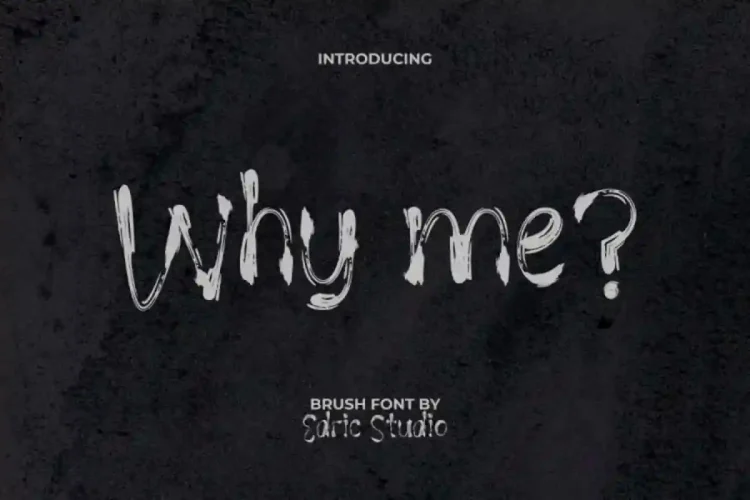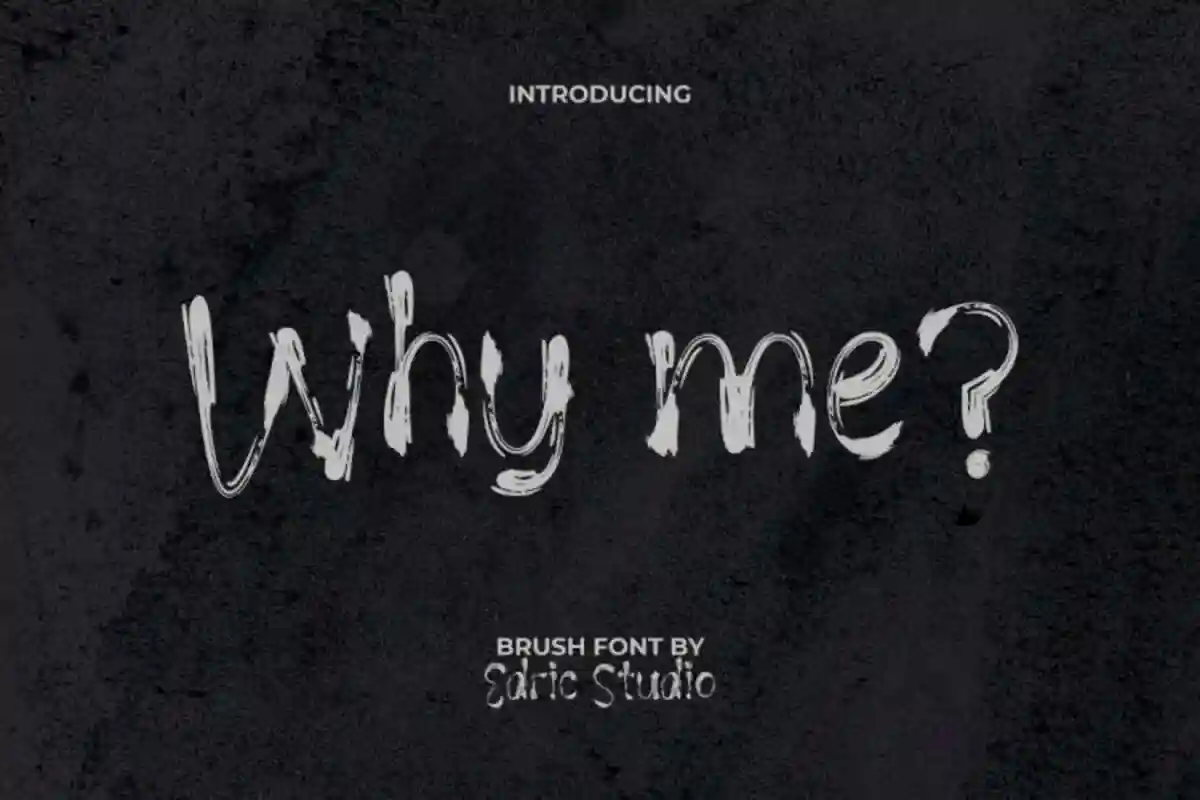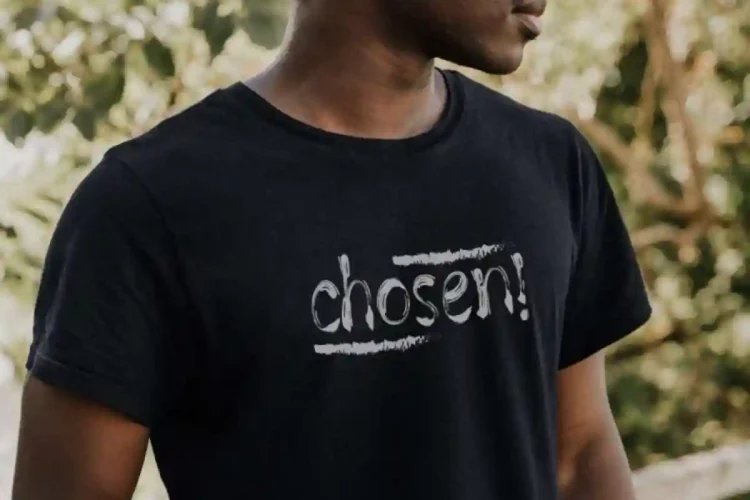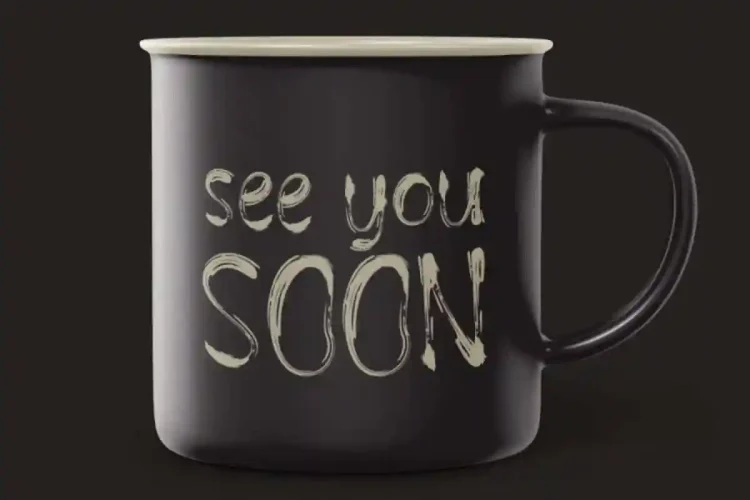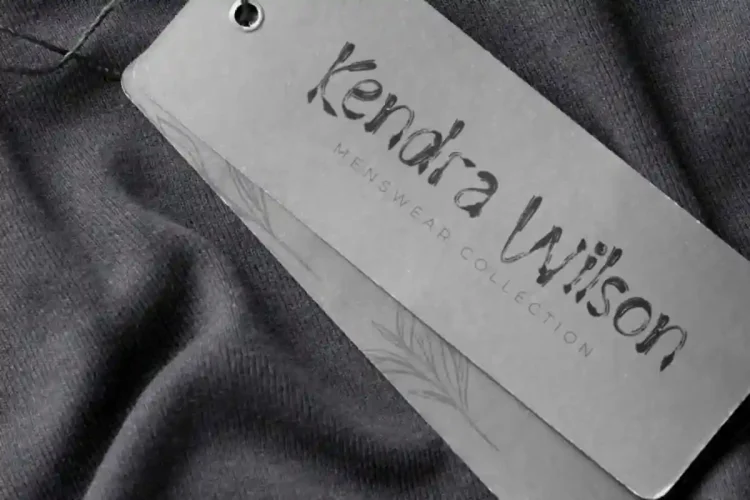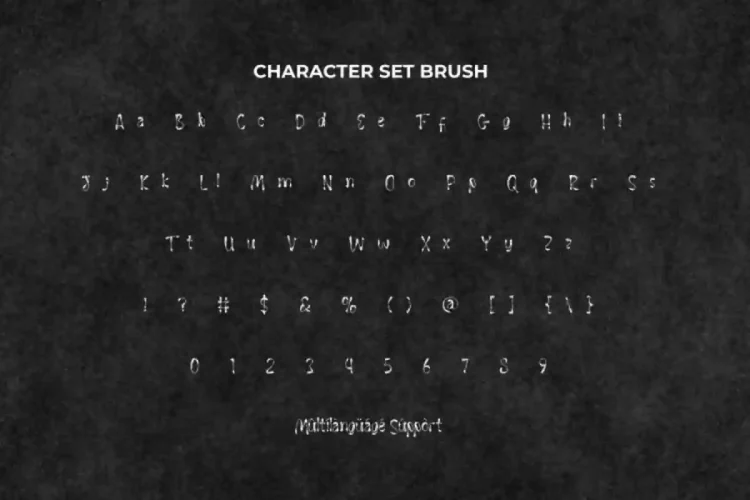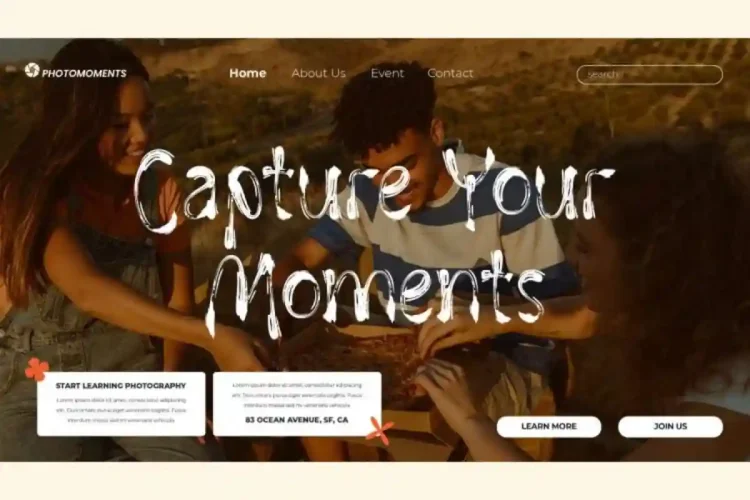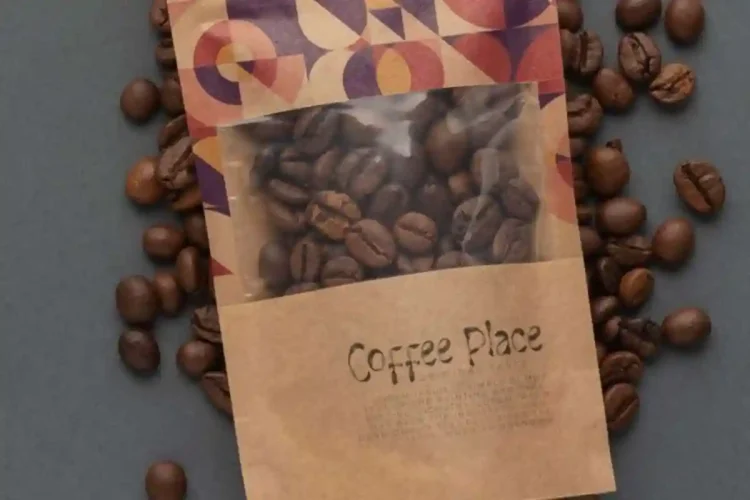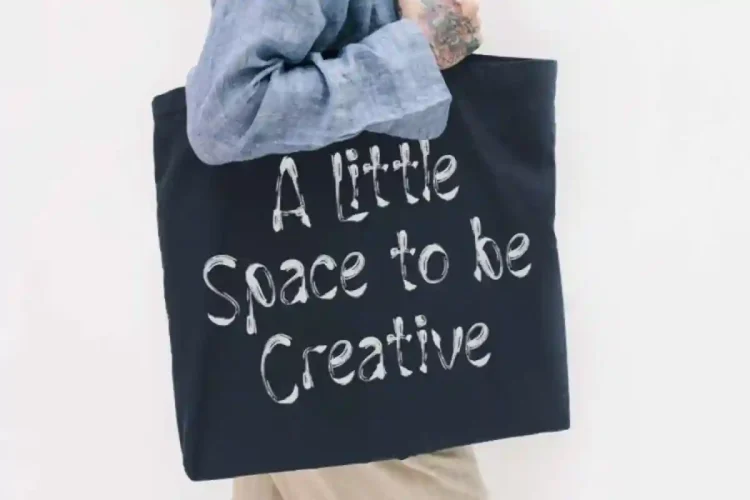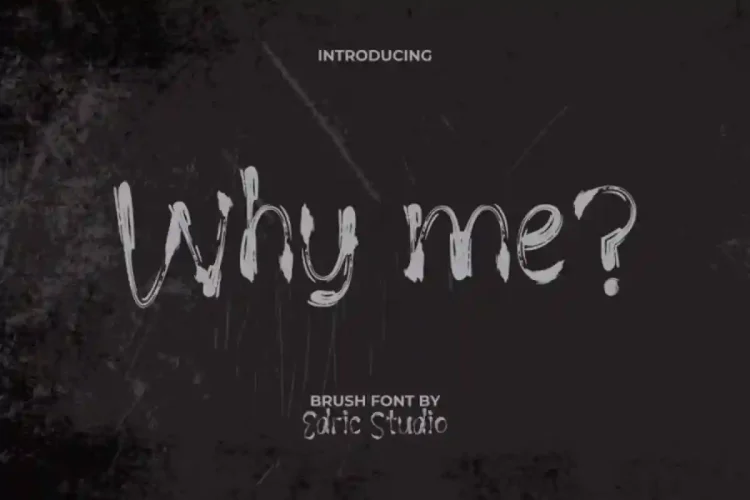
Why me Display Brush Font
Why me Display Brush Font a horror textured brush display typeface designed by EdricStudio. This font takes the concept of brushing paint to make it unique and looks real as cool street art that would be perfect for any industry, including: accessories, barbershop, clothing brand, coffee palace, craft, fitness products, game, movie, music, photography, printing, publishing, sport, and much more.
Why me? Display Brush Font comes with full set of Uppercase and Lowercase Basic Characters, Number, a large range of Punctuation and Symbol. It has a stunning characters set, perfectly managed with well spaced and kerning.
Why me? Font is a playful typeface with unique decoration in each character. Ready to use both on Windows machine or Mac with simple installations. It’s tested to work well in the Adobe Apps (Illustrator, Adobe InDesign, Adobe Photoshop) even work on Microsoft Word. PUA Encode Characters means you can access all characters easily – Fully accessible without additional design software.